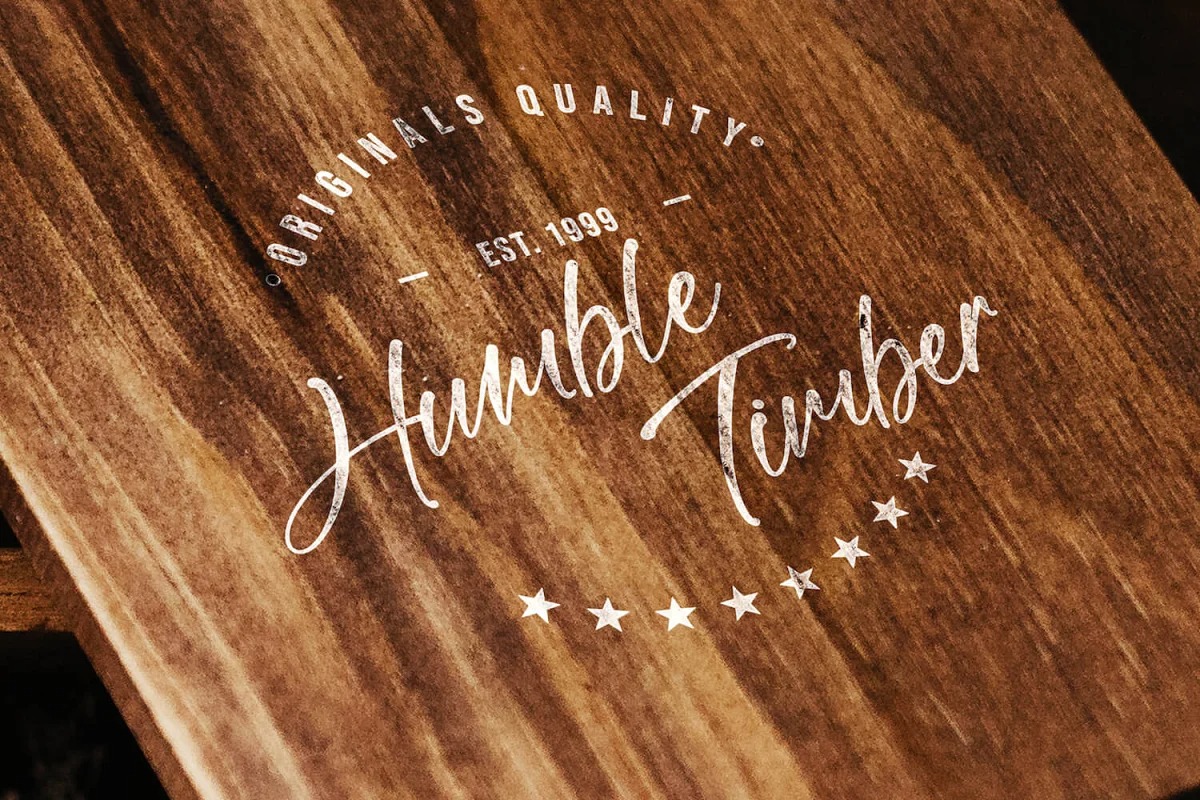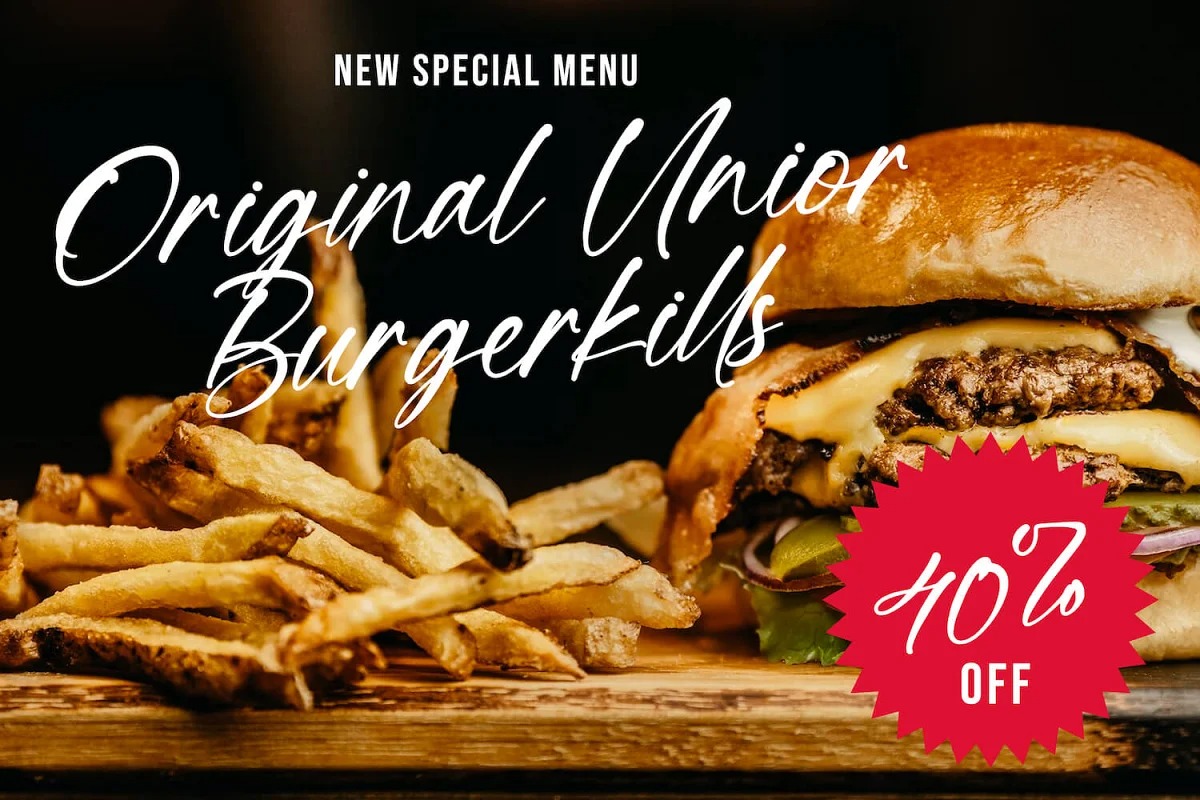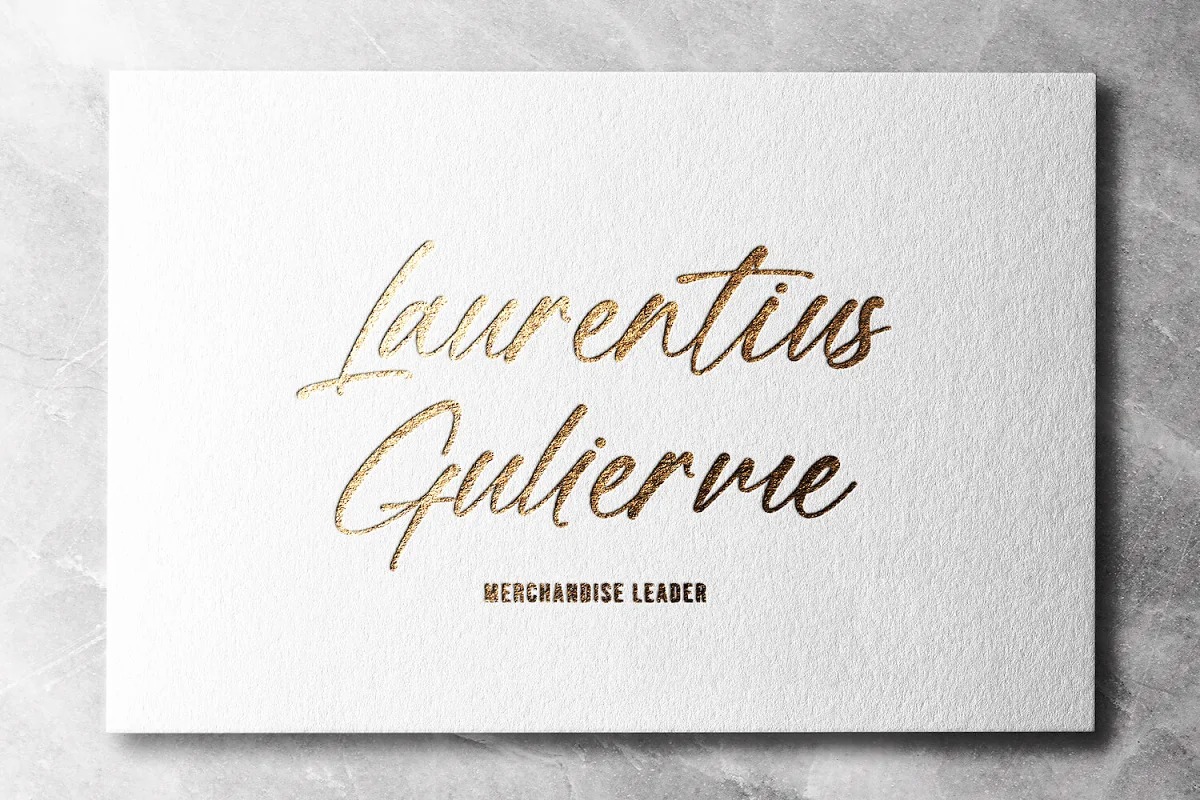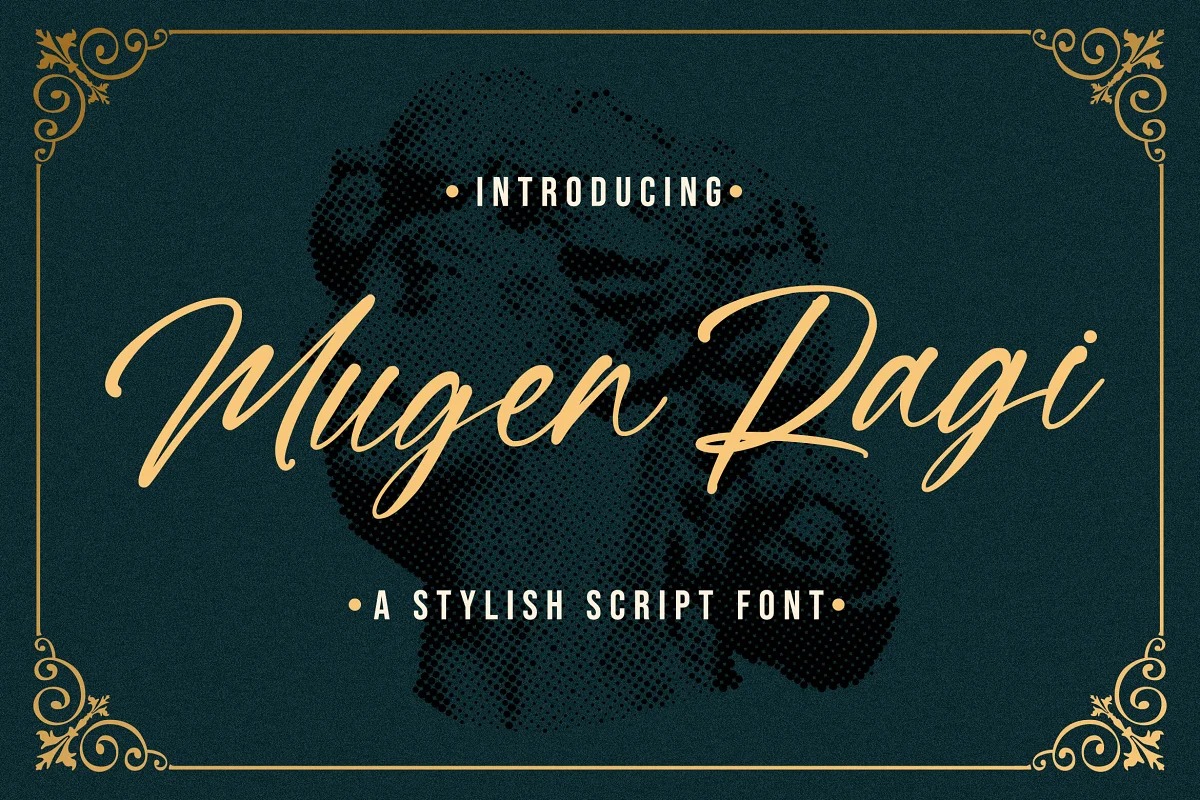
Mugen Ragi Font
Mugen Ragi Script Font is a casual script typeface created by StringLabs with delicate curves and a unique blend of thick and thin lines. It will elevate a wide range of design projects to the highest level, be it branding, headings, wedding designs, invitations, signatures, logos, labels, and much more!